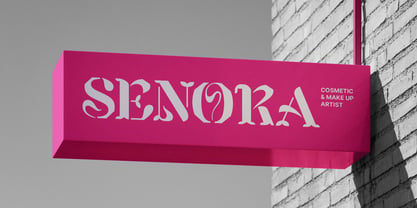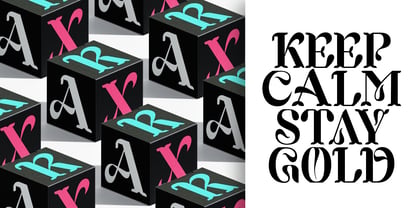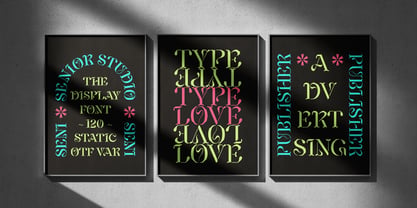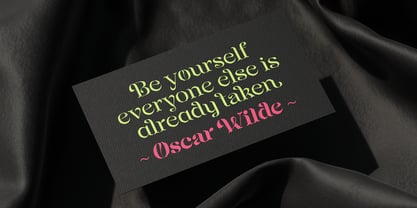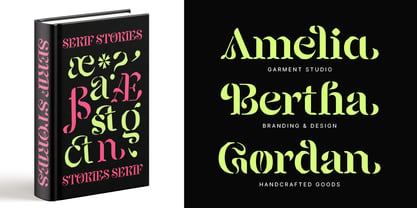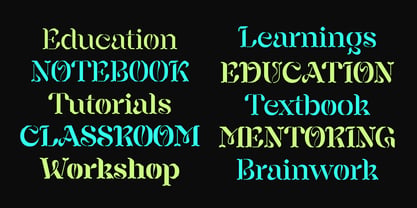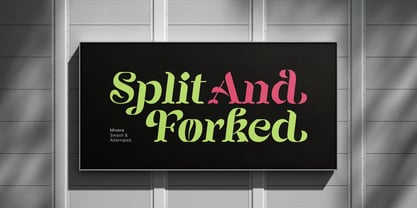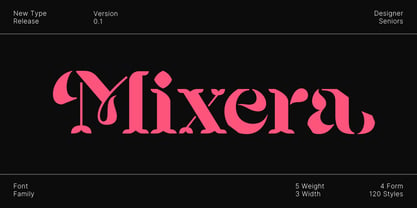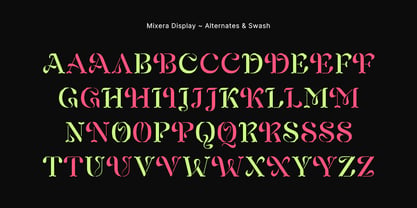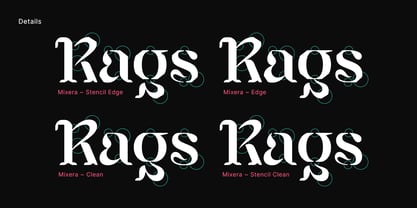
Mixera
by Seniors Studio
Mixera is a contemporary serif typeface that blends hybrid forms with a geometric foundation, resulting in an expressive and visually striking display style. Inspired by traditional tuscan letterforms, it features distinctive split and forked serifs that lend the typeface a unique and captivating character. Enhanced with calligraphic swashes and refined decorative details, Mixera conveys a sense of glamour, warmth, and confident personality. The interplay between its sharp structural forms and flowing ornamental elements creates a dynamic visual rhythm, enabling designers to craft compositions that feel both elegant and expressive. Mixera offers a rich set of uppercase and lowercase alternates, allowing for greater flexibility and creative exploration in typographic compositions. Despite its decorative nature, it is carefully designed to maintain balance and readability across a wide range of sizes and layouts. Its versatility makes Mixera ideal for various applications from headlines and fashion branding to editorial design, posters, and other high-impact visual compositions. It adapts seamlessly to both classic-inspired aesthetics and contemporary design directions. Mixera family is available in four distinct forms: Edge, Clean, Stencil Edge, and Stencil Clean. Each forms includes five meticulously crafted weights and three widths, along with matching slanted versions, ensuring visual harmony and consistency across all uses. In addition, Mixera is available as a variable font featuring two flexible axes Weight and Width providing precise typographic control and expanded creative possibilities. As a comprehensive superfamily, it includes a total of 120 static files, offering a powerful and adaptable toolkit for modern typographic exploration. With extensive multilingual support, Mixera is designed to meet a wide range of global design needs.